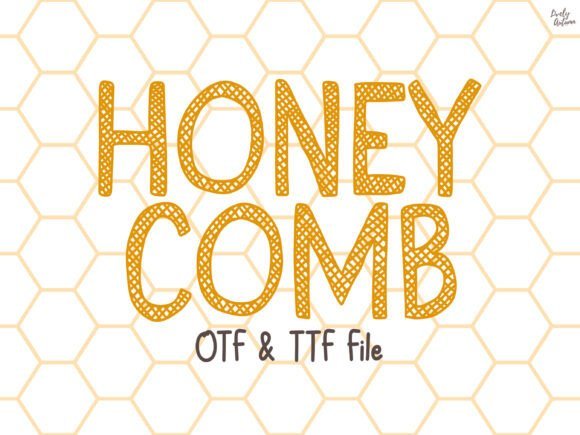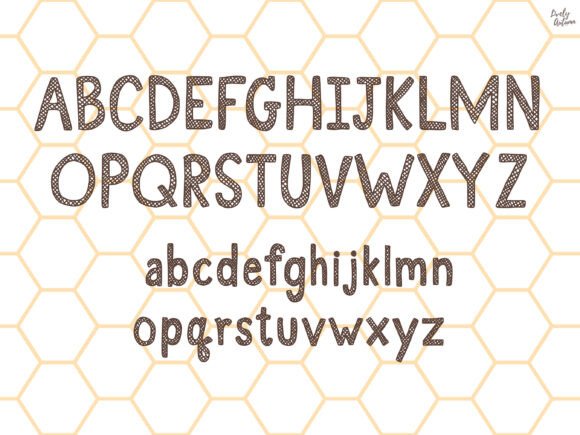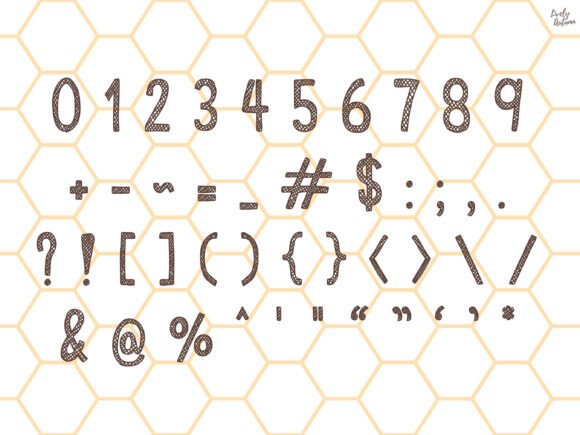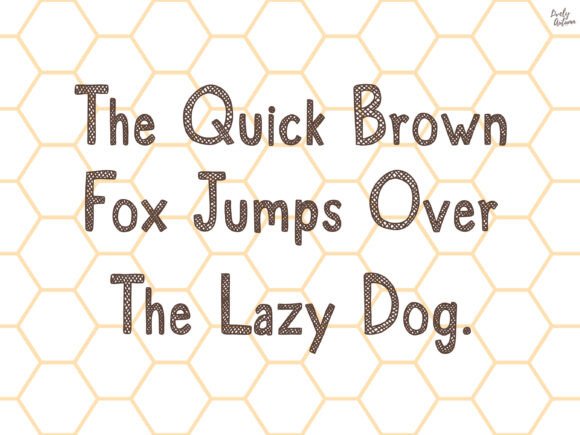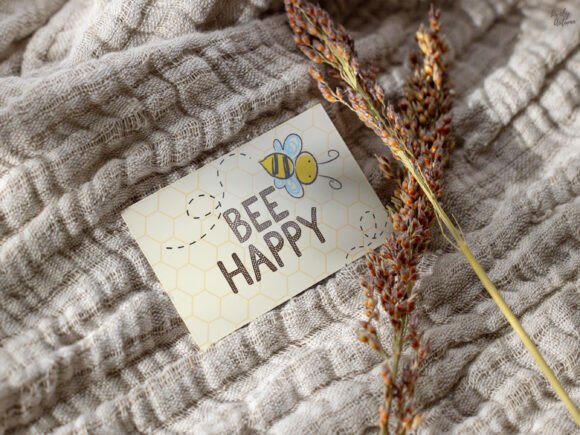
Get Ready to Bee Creative with Honeycomb Font
Have you ever been working on a design project and suddenly, a spark of inspiration hits you? Maybe it’s the perfect font, a clever color combination, or an innovative layout. For me, it’s often the discovery of a unique and versatile font that sets the creative wheels in motion. Recently, I stumbled upon the Honeycomb Font, and I’m excited to share its potential with you.
This charming sans serif handwritten font features a distinctive diagonal tile pattern in each letter, making it perfect for a wide range of personal and professional projects. From wedding invitations to social media graphics, journals, and greeting cards, Honeycomb Font is sure to add a touch of whimsy and personality to your designs. As a designer, you’ll appreciate its value in bringing a fresh perspective to your work.
Honeycomb Font Key Features
- Unique Characteristics: The Honeycomb Font features a unique, honeycomb-inspired design with intricate details and patterns.
Honeycomb Font Review
I’ve had the chance to work with the Honeycomb font, and here’s my honest review.
- The unique, 3D-like design of the font is quite striking and can add a touch of modernity to any project.
- The font is highly customizable, allowing users to adjust the size, color, and spacing to suit their needs.
- It’s available in a wide range of weights and styles, making it suitable for various design applications.
- The font is also highly legible, even at small font sizes, which is a major plus.
- The font may not be suitable for all design projects, as it can be quite bold and eye-catching, which may not be desired in all cases.
- The font’s unique design may not appeal to everyone, and some users may find it too busy or distracting.
- The font may require more processing power to render, which can be a concern for users with slower computers.
The Honeycomb font is a solid choice for designers looking for a unique and customizable font. While it may have some limitations, its strengths make it a great addition to any design toolkit.
Tips for Getting the Most Out of the Honeycomb Font
To get the most out of the Honeycomb Font, try using it in combination with other fonts to create a unique and eye-catching design.
Experiment with different font sizes and styles to add visual interest to your design.
Use the Honeycomb Font to create a cohesive brand identity by using it consistently across all your marketing materials.
The Honeycomb Font is perfect for:
Creating a modern and trendy logo or branding.
Designing a social media post or flyer that grabs attention.
Adding a unique touch to a presentation or
Alternatives to Honeycomb Font
Pacifico is a beautiful, elegant script font that is perfect for creating a warm and inviting atmosphere. It’s ideal for use in wedding invitations, menus, and other design elements where a touch of sophistication is needed. Pacifico is more delicate and refined compared to Honeycomb Font, which makes it a great choice for designers who want to add a touch of luxury to their designs.
Great Vibes is a modern, handwritten font that is perfect for creating a fun and playful atmosphere. It’s ideal for use in social media graphics, advertisements, and other design elements where a touch of whimsy is needed. Great Vibes is more energetic and casual compared to Honeycomb Font, which makes it a great choice for designers who want to add a touch of personality to their designs.
Alex Brush is a elegant, cursive font that is perfect for creating a sophisticated and refined atmosphere. It’s ideal for use in logos, branding, and other design elements where a touch of elegance is needed. Alex Brush is more refined and polished compared to Honeycomb Font, which makes it a great choice for designers who want to add a touch of sophistication to their designs.